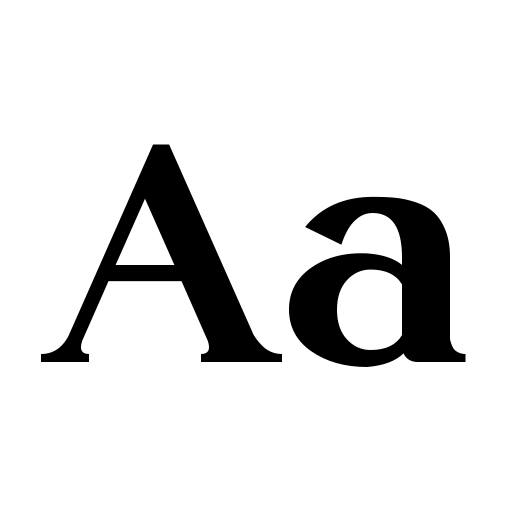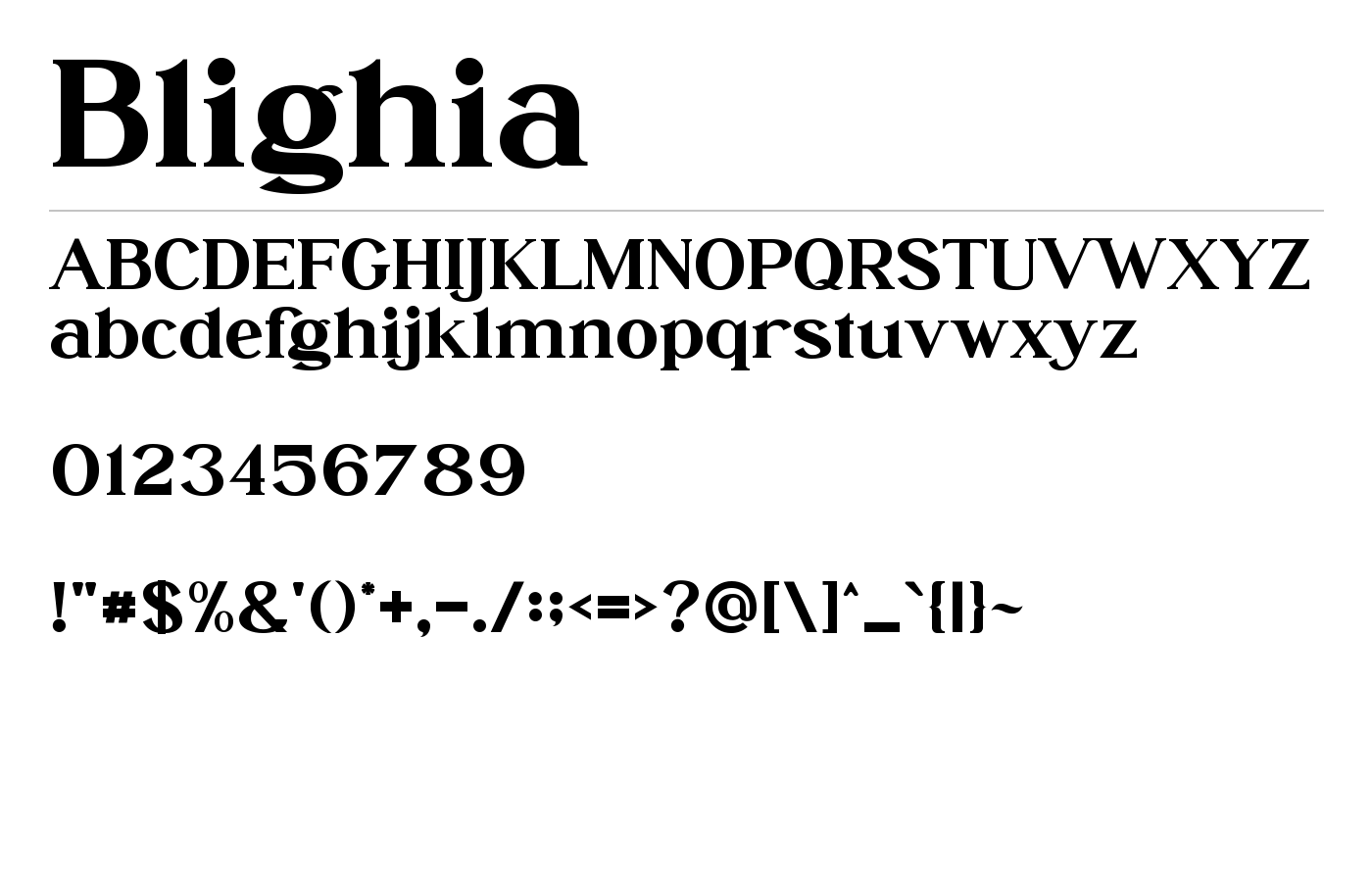
Blighia is a classic serif font that combines strong, bold strokes with elegant, slightly bracketed serifs, offering a timeless and authoritative feel. Its medium contrast and traditional letterforms, including distinctive double-story characters, make it ideal for use in editorial design, branding, and headlines where a refined yet impactful presence is desired. This font works well for projects seeking a balance between sophistication and readability.
Blighia Font
About Blighia Font
| Font family | Blighia Font |
| Designer | Biham Santoso |